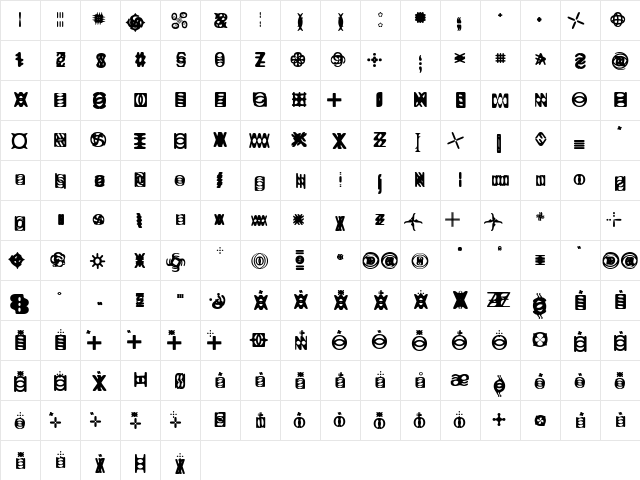
Ritual Two Regular Font Preview
Ritual Two Regular
Ritual Two Regular Font Details
Design Context for Ritual Two Typeface
Ritual Two is a composed and adaptable typeface that performs quietly and consistently across a wide range of design contexts.